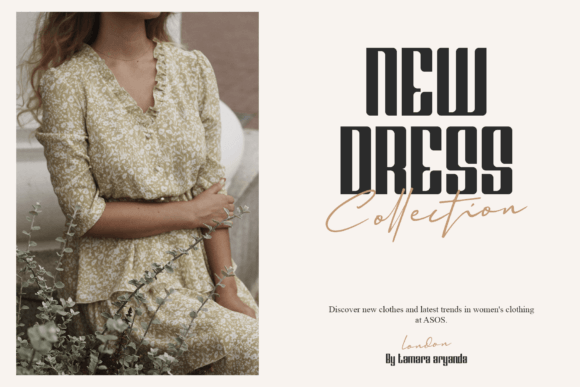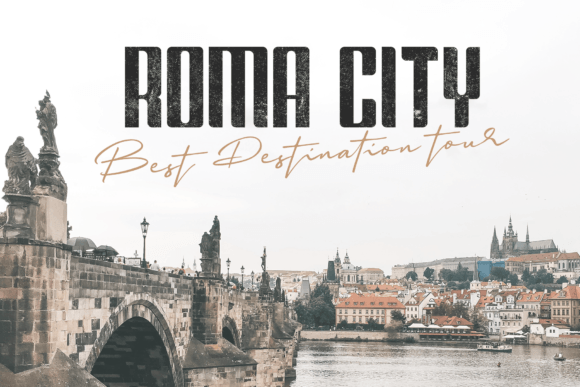
Introducing Greenleaf Font: A Modern and Unique Display Font for Crafters and Designers
In the world of typography, fonts play a crucial role in conveying messages, expressing creativity, and setting the tone for a project. For crafters and designers, finding the perfect font can be a daunting task, especially when looking for something that stands out from the crowd. This is where Greenleaf Font comes in – a modern and unique display font that is sure to elevate your creative projects.
What is Greenleaf Font?
Greenleaf Font is a stunning display font created by Kong Font Studio, a renowned designer on Creative Fabrica. This font is specifically designed for crafters and designers who want to add a touch of elegance and sophistication to their projects. With its unusual appearance, Greenleaf Font is perfect for making a statement and setting your work apart from the rest.
Key Features of Greenleaf Font
- Modern and Unique Design: Greenleaf Font boasts a modern and unique design that is sure to grab attention. Its distinctive style makes it perfect for creative projects, such as logos, branding, and advertising.
- High-Quality Typography: Greenleaf Font is crafted with high-quality typography in mind, ensuring that your text looks crisp and clear, even at large sizes.
Who Can Benefit from Greenleaf Font?
Greenleaf Font is an excellent choice for a variety of designers and crafters, including:
- Crafters: Whether you’re creating handmade cards, scrapbooking, or making DIY crafts, Greenleaf Font is a great addition to your design toolkit.
- Graphic Designers: If you’re working on branding, advertising, or marketing projects, Greenleaf Font can help you create eye-catching headlines and titles.
- Sign Makers: With its bold and unique design, Greenleaf Font is perfect for creating eye-catching signs, banners, and posters.
Tips for Using Greenleaf Font
To get the most out of Greenleaf Font, here are some tips to keep in mind:
- Use it as a Display Font: Greenleaf Font is designed to be used as a display font, so use it to create headlines, titles, and emphasis text.
- Experiment with Colors and Textures: The unique design of Greenleaf Font lends itself well to creative experimentation with colors and textures.
- Pair it with Other Fonts: Try pairing Greenleaf Font with other fonts to create a unique and visually appealing typography combination.
Greenleaf Font is a modern and unique display font that is sure to elevate your creative projects. With its unusual appearance, high-quality typography, and compatibility with popular design tools, it’s an excellent choice for crafters and designers. Whether you’re working on a branding project, creating handmade crafts, or making signs, Greenleaf Font is a great addition to your design toolkit.